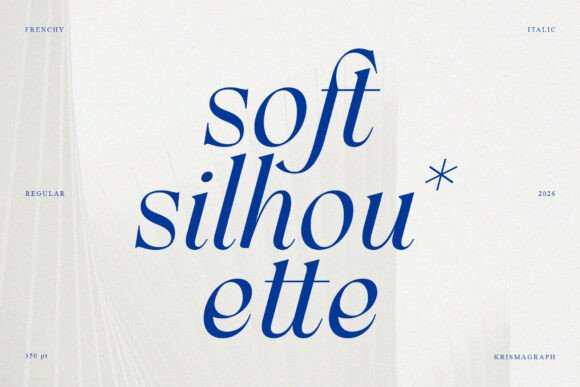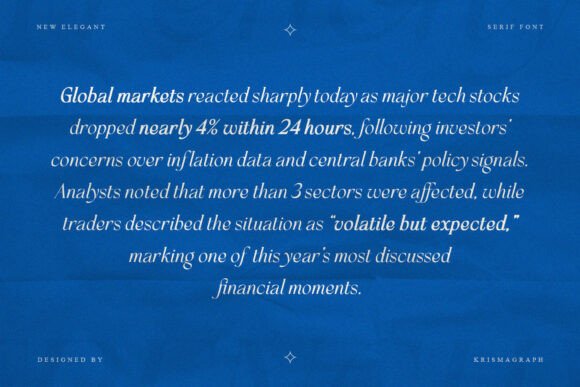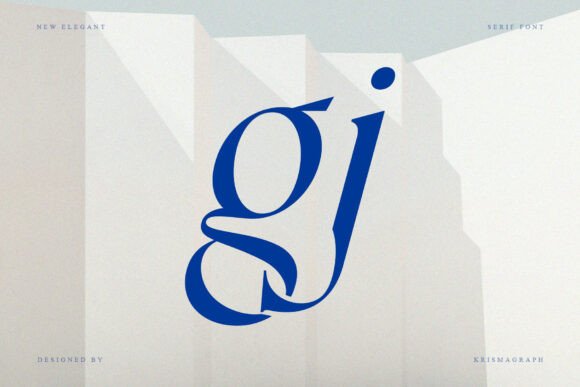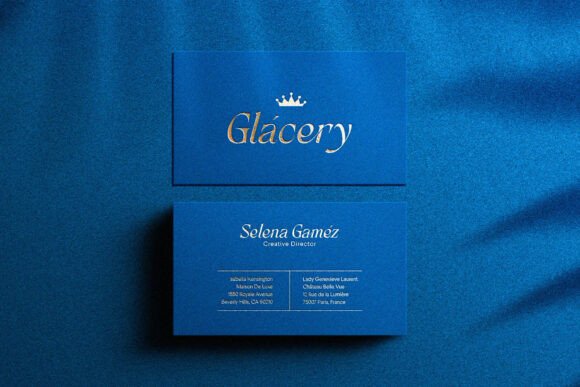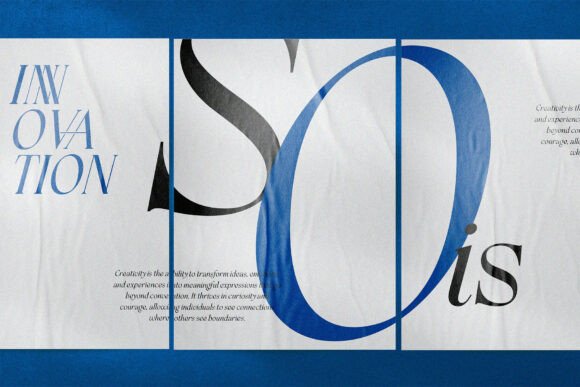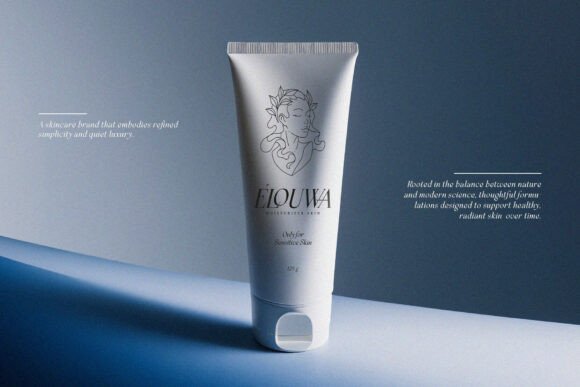
Introducing Frenchy Font: Elevate Your Designs with Elegance and Sophistication
In the world of typography, finding the perfect font that combines elegance, sophistication, and readability can be a daunting task. However, if you’re looking for a refined italic serif font that can add a touch of luxury to your designs, look no further than Frenchy Font. Designed to complement modern serif compositions, Frenchy is an exquisite font that features smooth curves, refined ligatures, and expressive letterforms, making it perfect for a wide range of design applications.
The Characteristics of Frenchy Font
Frenchy Font is an elegant italic serif font that boasts a range of characteristics that set it apart from other fonts. Its smooth curves and refined ligatures create a sense of flow and harmony, making it ideal for designs that require a touch of sophistication. The font’s expressive letterforms add a level of personality to any layout, while its carefully crafted ligatures enhance typographic rhythm and visual harmony.
Design Applications for Frenchy Font
Frenchy Font is a versatile font that can be used in a variety of design applications. Its elegant and sophisticated design makes it perfect for:
- Editorial highlights: Add a touch of luxury to your editorial designs with Frenchy’s refined italic serif style.
- Branding accents: Use Frenchy to create eye-catching branding accents that elevate your brand’s visual identity.
- Quotes: Make your quotes stand out with Frenchy’s elegant and sophisticated design.
- Logos: Create stunning logos that exude elegance and sophistication with Frenchy.
- Invitations: Add a touch of luxury to your invitations with Frenchy’s refined italic serif style.
- Packaging: Use Frenchy to create eye-catching packaging designs that stand out on store shelves.
- Stylish headlines: Create stunning headlines that grab attention with Frenchy’s elegant and sophisticated design.
Why Choose Frenchy Font?
Frenchy Font is the perfect choice for designers who want a refined italic serif font that feels graceful, modern, and polished. Here are just a few reasons why you should choose Frenchy:
- Elegant design: Frenchy features a smooth, refined design that adds a touch of luxury to any layout.
- Sophisticated ligatures: Frenchy’s carefully crafted ligatures enhance typographic rhythm and visual harmony.
- Expressive letterforms: Frenchy’s expressive letterforms add a level of personality to any layout.
- Readability: Despite its elegant design, Frenchy remains highly readable, making it perfect for a wide range of design applications.
Tips for Using Frenchy Font
To get the most out of Frenchy Font, here are a few tips to keep in mind:
- Use it sparingly: Frenchy’s elegant design makes it perfect for use in headlines, titles, and accents. Use it sparingly to create visual interest and add emphasis.
- Pair it with complementary fonts: Frenchy pairs well with a range of fonts, including modern sans-serif fonts and traditional serif fonts. Experiment with different pairings to find the perfect combination for your design.
- Experiment with different sizes: Frenchy’s elegant design works well at a range of sizes, from large headlines to smaller body text. Experiment with different sizes to find the perfect fit for your design.
Frenchy Font is a stunning italic serif font that adds a touch of elegance and sophistication to any design. With its smooth curves, refined ligatures, and expressive letterforms, Frenchy is perfect for designers who want a refined font that feels graceful, modern, and polished. Whether you’re working on an editorial design, branding project, or packaging design, Frenchy is the perfect choice. So why wait? Download Frenchy Font today and elevate your designs to new heights!